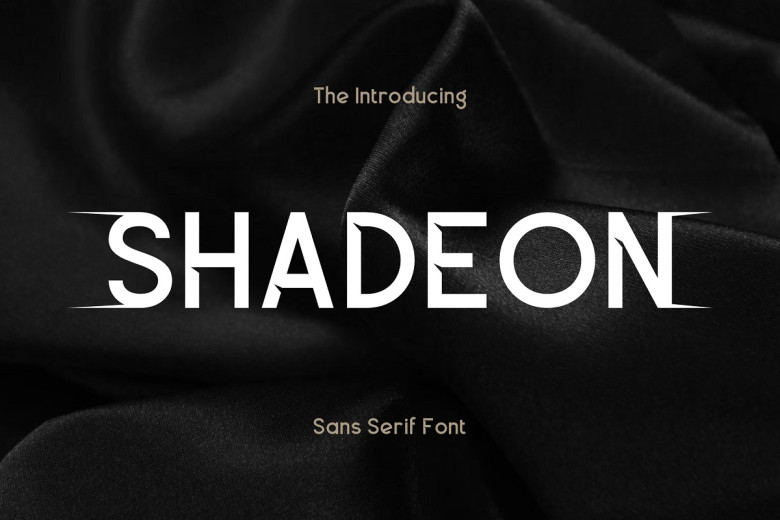
Shadeon Font
Shadeon Font, created by Storytype, A modern and classic sans serif font that has own unique style & modern look. This typeface is perfect for an elegant & luxury logo, book or movie title design, fashion brand, magazine, clothes, lettering, quotes, and so much more.
Shadeon Sans Serif Font